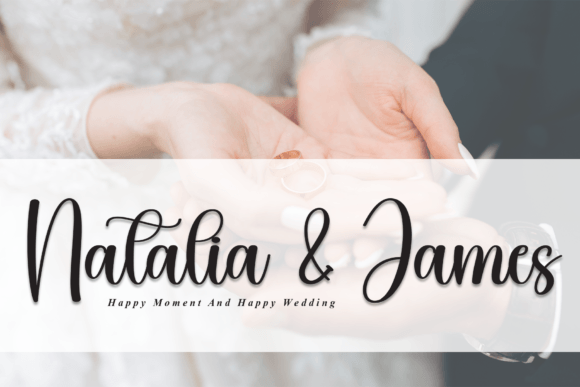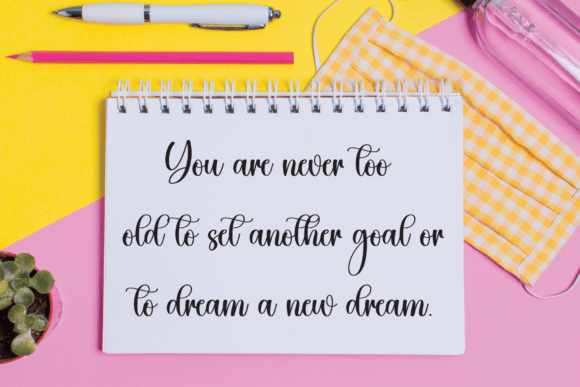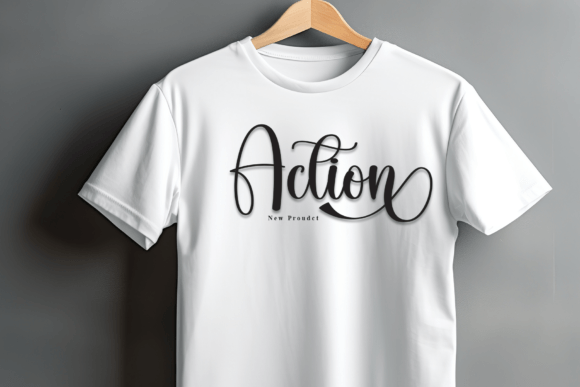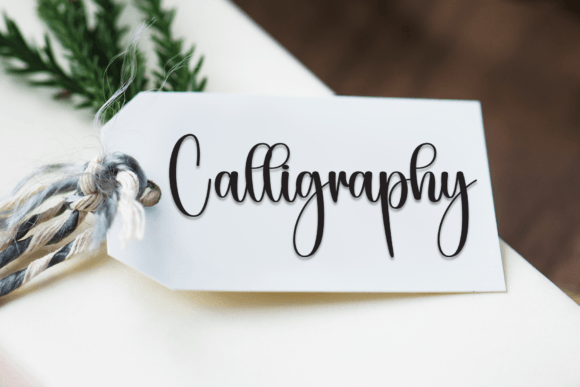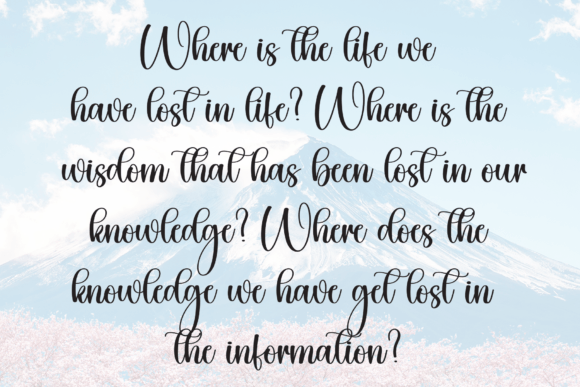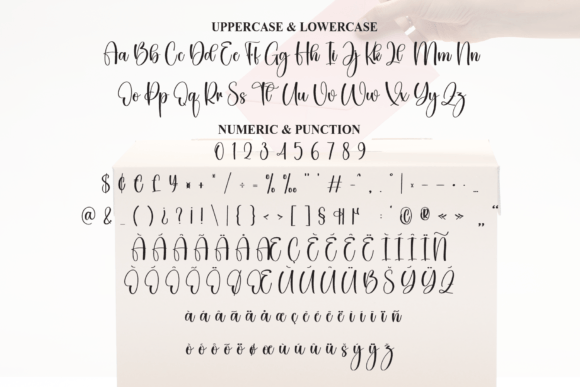
The Perfect Font for Your Next Creative Project: Election
Have you ever been in the middle of a design project, and suddenly, you just can’t seem to find the right font? I know I have! It was a typical Wednesday afternoon when I was working on a client’s wedding invitation project. The design was almost complete, but something was missing – the perfect font. That’s when I stumbled upon the Election font, and let me tell you, it was love at first sight! 💕
A Personal Touch with Election Font
Election is a stylish handwritten font that mixes thin and bold lines, giving it a unique look that’s perfect for adding a personal touch to your designs. Its friendly vibe makes it ideal for invitations, posters, and any project that needs a bit of warmth and character. Whether you’re a designer, crafter, or creative hobbyist, this font is sure to become a favorite in your collection.
An Honest Review of Election Font
So, what do I love about the Election font? Here are a few things that make it stand out:
- ✨ Unique and stylish: The mix of thin and bold lines gives it a distinctive look that’s sure to grab attention.
- ✅ Versatile: Perfect for a wide range of projects, from invitations and posters to social media graphics and more.
- 💕 Friendly vibe: The handwritten style of the font adds a warm and personal touch to your designs.
Of course, no font is perfect, and there are a few small quirks to be aware of:
- 🤔 Limited use in very formal or corporate designs: The friendly, handwritten style of the font may not be suitable for very formal or corporate projects.
- ⚠️ May not be suitable for very small text sizes: As with many handwritten fonts, it may not be legible at very small text sizes.
One of the best things about the Election font is its OpenType features and glyphs. These features allow you to add more variety to your text and make it more visually interesting. Here are a few tips for using OpenType features and glyphs:
- Use stylistic alternates to create a more handwritten look.
- Experiment with different glyphs to add more visual interest to your text.
- Take advantage of ligatures to create a more polished look.
The Story Behind Election Font
The Election font was designed by a team of creatives who wanted to create a font that was both stylish and approachable. Inspired by the imperfections of handwritten text, they crafted a font that’s perfect for adding a personal touch to your designs.
| Q: What type of projects is the Election font best suited for? | A: The Election font is perfect for invitations, posters, social media graphics, and any project that needs a friendly, personal touch. |
| Q: Is the Election font available in different languages? | A: The Election font may not be available in all languages, but it’s designed to work with a wide range of languages that use the Latin alphabet. |